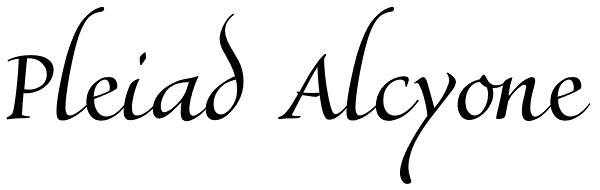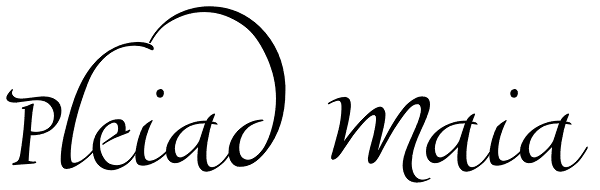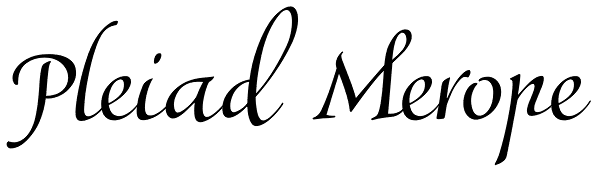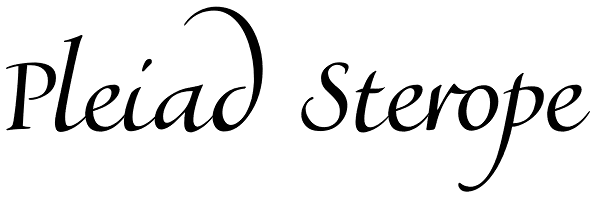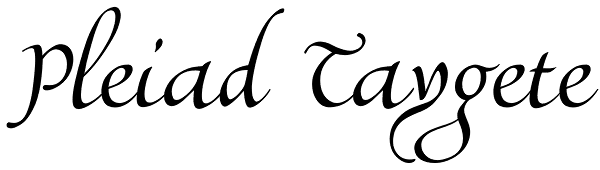
Pleiad
Seven superb scripts, to be freely mixed with one another. Alone, each of them flows nicely, but combined they reach ultimate vitality and grace. The Pleiades are one of the most beautiful constellations in the sky, and in Greek mythology they were...
Pleiad Alcyone
Pleiad Celeno
Pleiad Electra
Pleiad Maia
Pleiad Merope
Pleiad Sterope
Pleiad Taygete